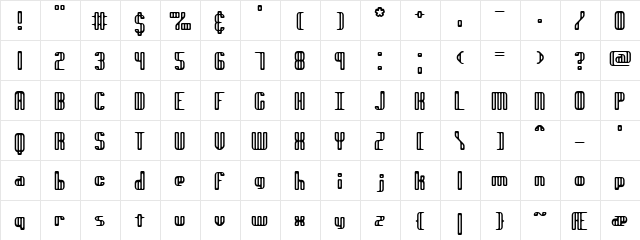
genotype RH BRK Normal
Design Context for genotype RH BRK Typeface
genotype RH BRK is a composed and adaptable typeface that performs quietly and consistently across a wide range of design contexts.